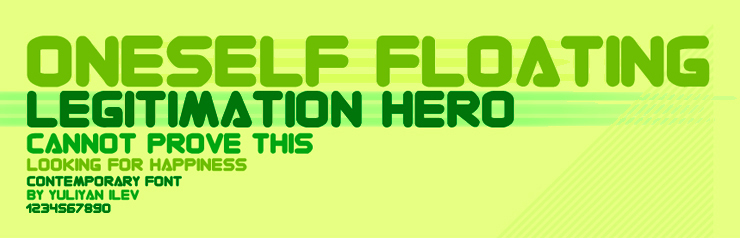
Contemporary ONE by Yuliyan Ilev is a free rounded geometric display font with a solid, futuristic build. Broad strokes and softened corners give the capitals a compact, machined silhouette. Rectangular inner spaces add a crisp technical edge to the rounded construction.
A poster is its most convincing setting, where the blocky forms can support technology events, arcade graphics, and music promotion. The same engineered shapes could become the core of branding for gaming studios or electronic products, turning a name into a simple emblem-like mark.
Contemporary ONE Font